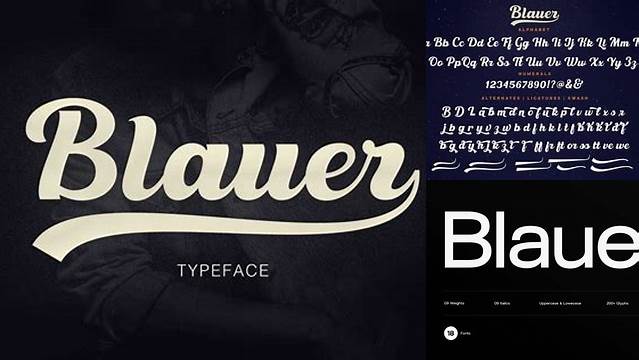
Download Blauer Font Free: A Comprehensive Guide
Hey guys! Ever stumbled upon a font that just screams sophistication and style? That might just be the Blauer font. This guide is your go-to resource for everything you need to know about finding and using this awesome typeface. We're diving deep into the world of fonts, legality, and creative applications, so buckle up!
What is Blauer Font?
So, what exactly is the Blauer font? Well, it's not just one single font; it's more like a family of typefaces that share a certain aesthetic – think clean lines, modern appeal, and a touch of elegance. Often, when people search for "Blauer font free," they're looking for a typeface that resembles the styles commonly associated with the Blauer brand or similar minimalist designs. The Blauer brand itself focuses on apparel, often utilizing a specific, proprietary font for their branding. However, numerous fonts available capture a similar vibe. Identifying the precise font used by Blauer typically requires detailed font identification tools or direct communication with the brand. Many designers and enthusiasts seek out fonts with similar characteristics to maintain a cohesive visual identity or to achieve a specific aesthetic in their projects. The widespread appeal of minimalist and modern designs ensures that fonts resembling Blauer's style remain highly sought after. This demand fuels the creation and distribution of both free and premium fonts that emulate the clarity and sophistication of the Blauer aesthetic, making it easier for individuals and businesses to find a typeface that fits their needs.
Using Blauer-esque Fonts in Graphic Design
Blauer font, or fonts similar to it, can be a game-changer for your graphic design projects. Its clean, modern aesthetic makes it perfect for logos, websites, posters, and pretty much anything else you can think of. When using these fonts, think about creating a balanced and visually appealing layout. Pair it with complementary fonts that don't clash – a classic serif font can work wonders. Pay attention to kerning (the space between letters) and leading (the space between lines) to ensure readability and a professional look. Experiment with different font weights and sizes to create visual hierarchy and draw attention to important elements. Remember, less is often more. Don't overcrowd your design with too many fonts or elements. Let the Blauer-esque font shine by keeping the overall design clean and uncluttered. Whether you're designing a sleek corporate website or an eye-catching poster, using a font with a similar style to Blauer can elevate your design and give it a modern, sophisticated edge.
Blauer Font Alternatives for Web Design
When it comes to web design, choosing the right font is crucial for creating a user-friendly and visually appealing website. Blauer font alternatives can be excellent choices for headings, body text, and navigation menus. Look for fonts that are legible on screens of all sizes and that load quickly to avoid slowing down your website. Some popular alternatives include Montserrat, Open Sans, and Lato. These fonts share a similar minimalist aesthetic with Blauer, making them versatile options for a wide range of web design projects. Consider using different font weights and styles to create visual interest and to guide users through your content. For example, you could use a bold font for headings and a regular font for body text. Also, pay attention to line height and letter spacing to ensure readability. A well-chosen font can enhance the overall user experience and make your website more engaging and effective. So, take your time, experiment with different options, and find the Blauer font alternative that best suits your website's style and purpose.
Combining Blauer-Style Fonts with Other Typefaces
The art of typography involves more than just picking a single font; it's about creating a harmonious visual experience by combining different typefaces. When working with a Blauer-style font, which is typically clean and modern, consider pairing it with a contrasting font to add visual interest and hierarchy to your design. A classic serif font, like Times New Roman or Garamond, can create a sophisticated contrast with the minimalist Blauer aesthetic. Alternatively, you could pair it with a script font for a touch of elegance and personality. The key is to choose fonts that complement each other without clashing. Pay attention to the font weights, sizes, and spacing to ensure readability and visual balance. Experiment with different combinations to see what works best for your project. Don't be afraid to break the rules, but always prioritize readability and visual appeal. By mastering the art of font pairing, you can create stunning designs that are both visually engaging and easy to read.
Final Thoughts on Finding Your Perfect Blauer Font
Finding the perfect Blauer font (or a fantastic alternative) is all about knowing what you're looking for, understanding licensing, and experimenting with different options. Don't be afraid to try out different fonts and see what works best for your project. Remember to always respect font licenses and support the designers who create these amazing typefaces. With a little bit of research and creativity, you can find the perfect font to elevate your designs and make them truly stand out. Now go out there and create something awesome, guys!